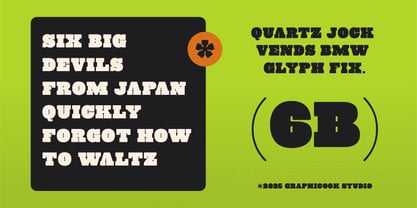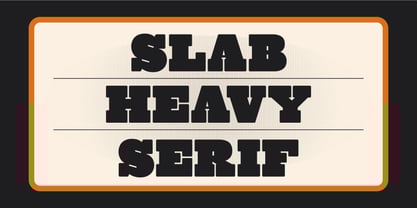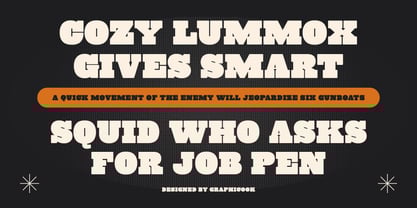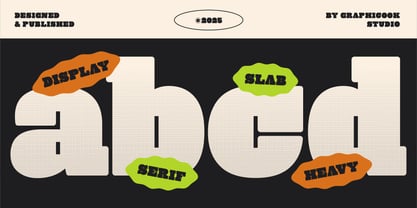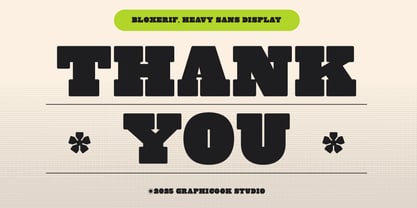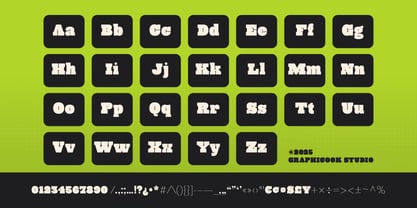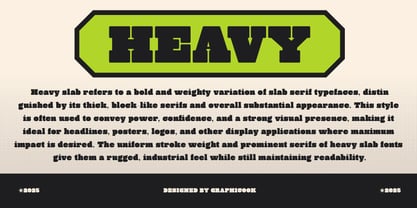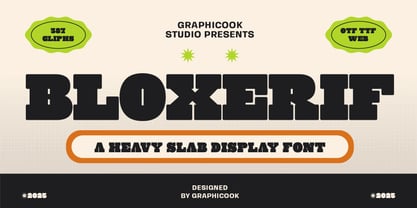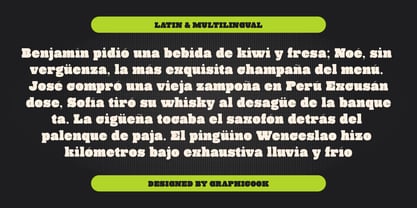
Cook Bloxerif
by Graphicook Studio
The Cook Bloxerif Font Family was designed by Gumilar Febriansyah and published by Graphicook Studio. Cook Bloxerif contains 1 styles.
Bloxerif is a slab-serif font featuring boxy, bold letterforms that convey a strong and masculine impression. It's ideal for logos or headlines that demand high visual impact. It is perfect for headlines, logotypes, magazines, packaging, quotes, movies, games, cover albums, book covers, and flyers, it's a perfect solution for creating eye-catching designs that stand out in any context.